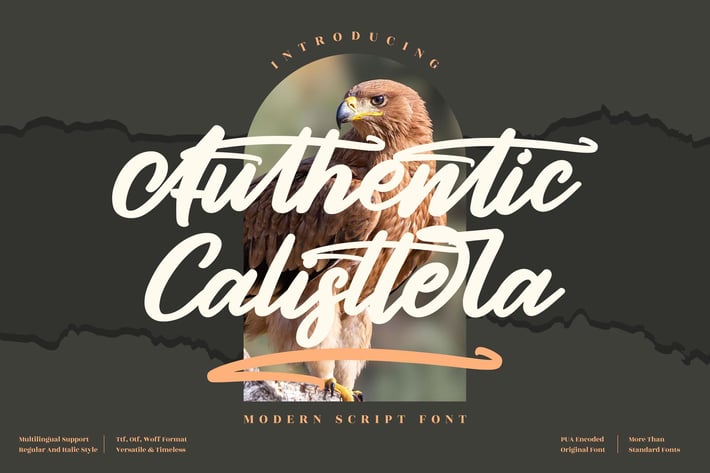
Authentic Calisttera Script Font
Authentic Calisttela is a stylish modern script font crafted to bring an expressive and elegant touch to your creative work. With its flowing strokes and soft brush texture, this font adds personality to any design that needs a bold handwritten aesthetic.
Modern script feel
Smooth brush strokes
Regular & italic styles